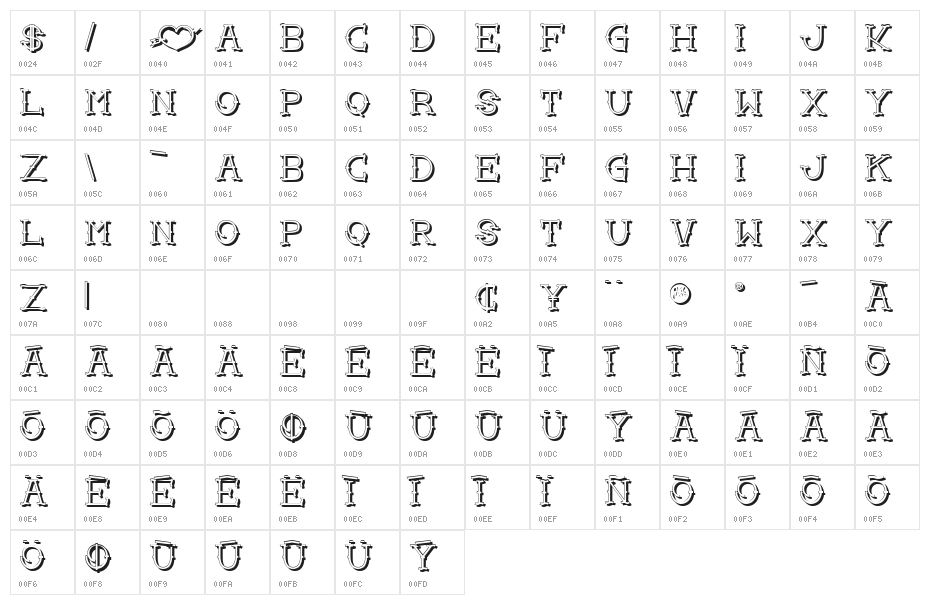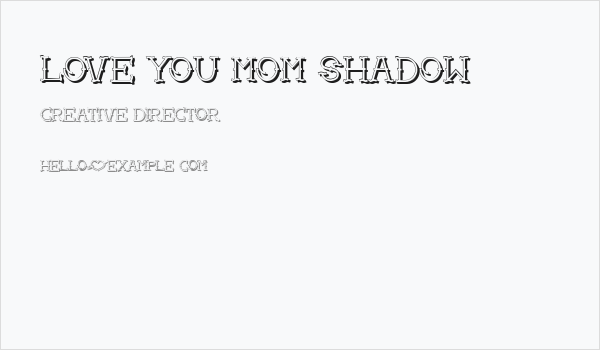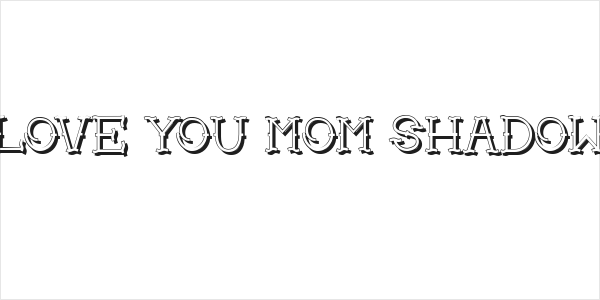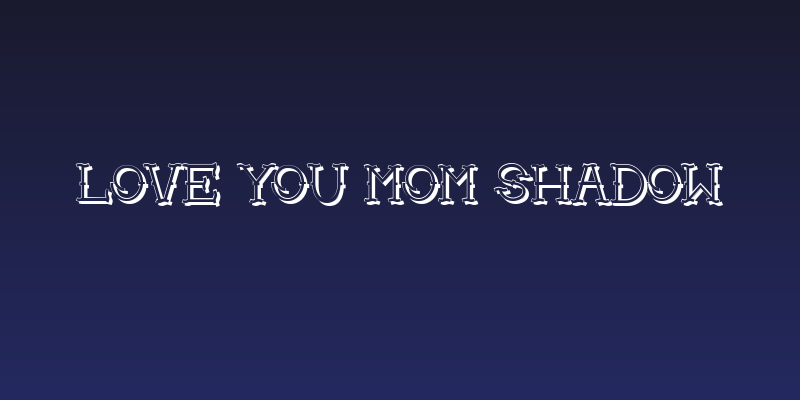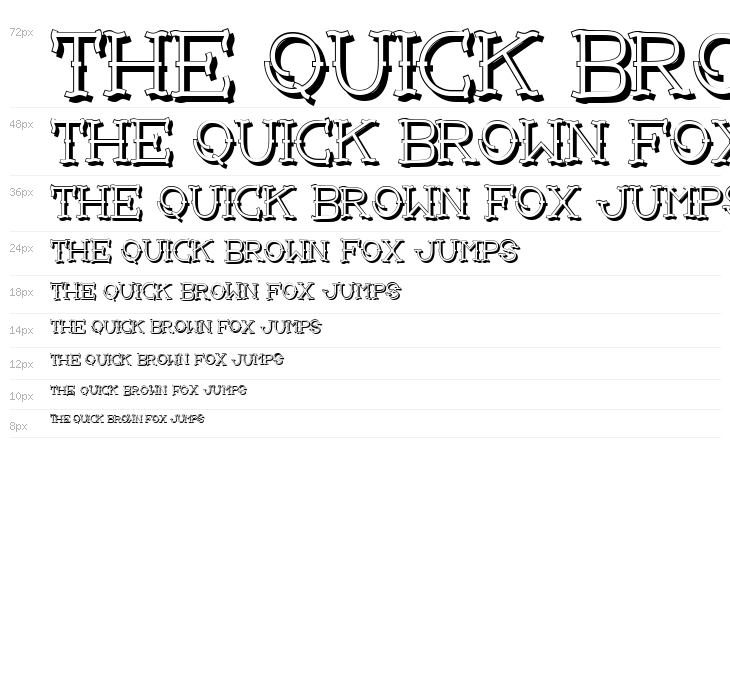
Love you mom Shadow Font
Love you mom Shadow Description
This font features a bold and decorative style with a shadow effect that adds depth and dimension to each character. The uppercase letters are prominently displayed with a strong, structured form, while the shadow creates a three-dimensional appearance. The font's design is reminiscent of vintage signage, with its bold outlines and intricate detailing. The characters are well-defined, making them suitable for impactful visual statements. The special characters, such as the dollar sign and slash, maintain the same bold and shadowed aesthetic, ensuring consistency across all glyphs.
| Use Case | Headlines, Logos, Posters, Signage |
| Proposed Projects | This font is perfect for projects that require a vintage or retro feel, such as posters, signage, branding, and headlines. Its bold and decorative nature makes it suitable for creating eye-catching titles and logos. |